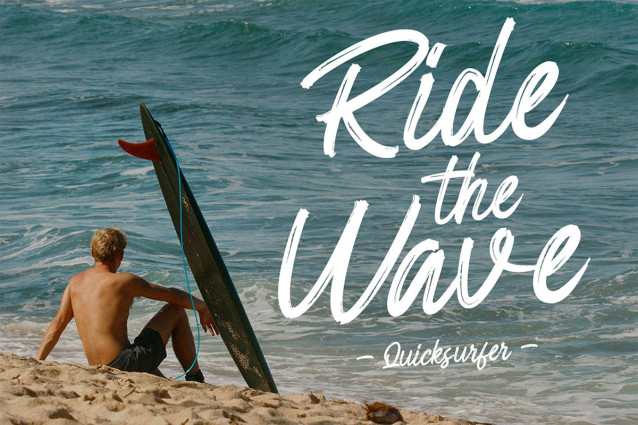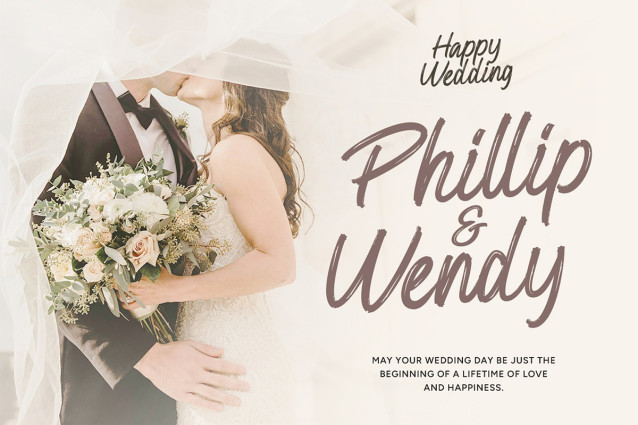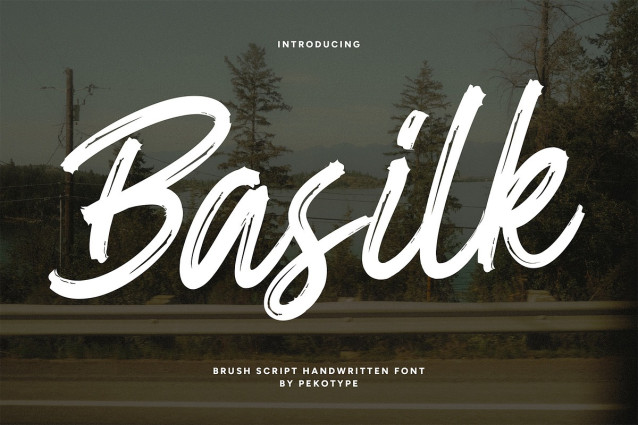
Basilk Brush Font
Basilk Brush Font a rough brush script font crafted with raw energy and hand-lettered charm. Designed to stand out, BASILK blends the expressive power of brush strokes with the elegance of natural handwriting, making it perfect for brands and creators who dare to be bold.
Whether you’re designing a logo, billboard, merchandise, or a social media post that turns heads, BASILK brings that handcrafted edge that modern design needs. Every letter is packed with personality, giving your words a unique, dynamic, and artistic feel.